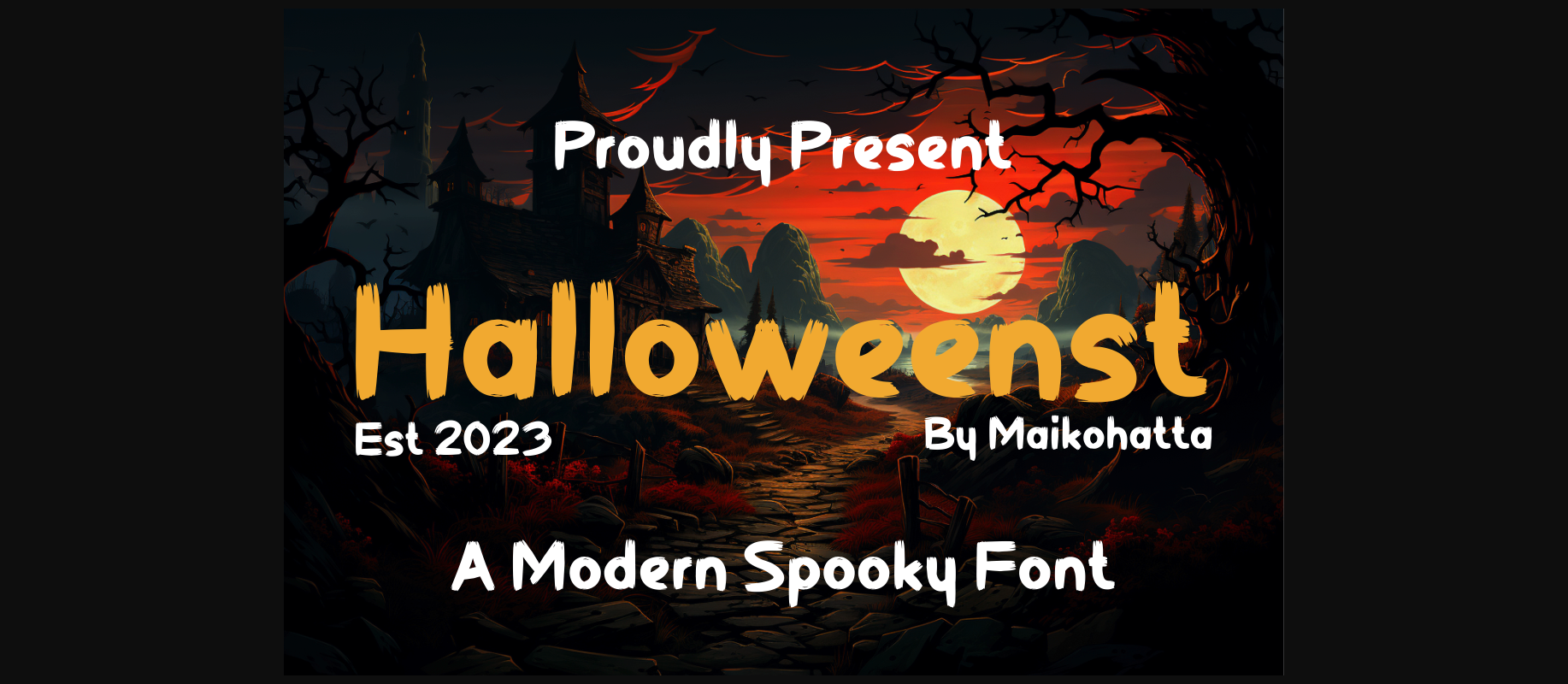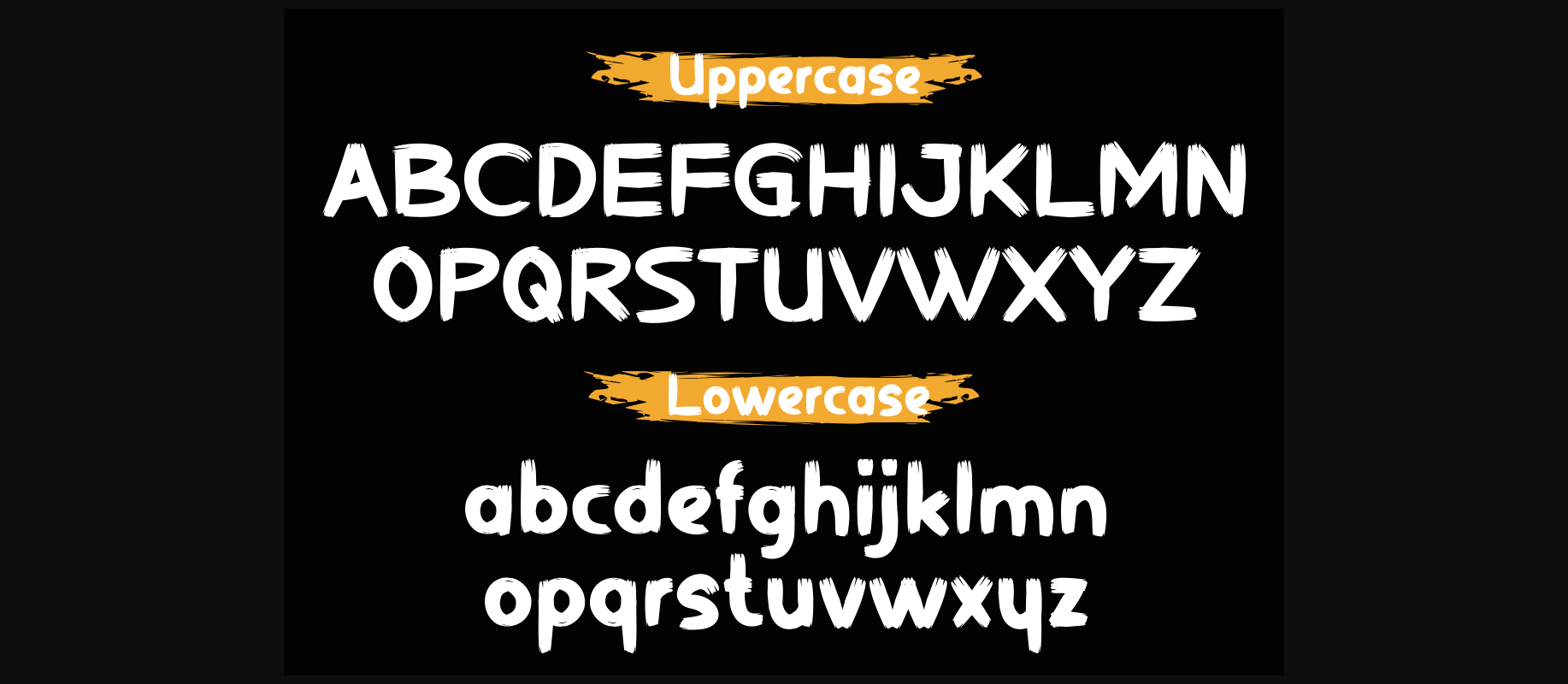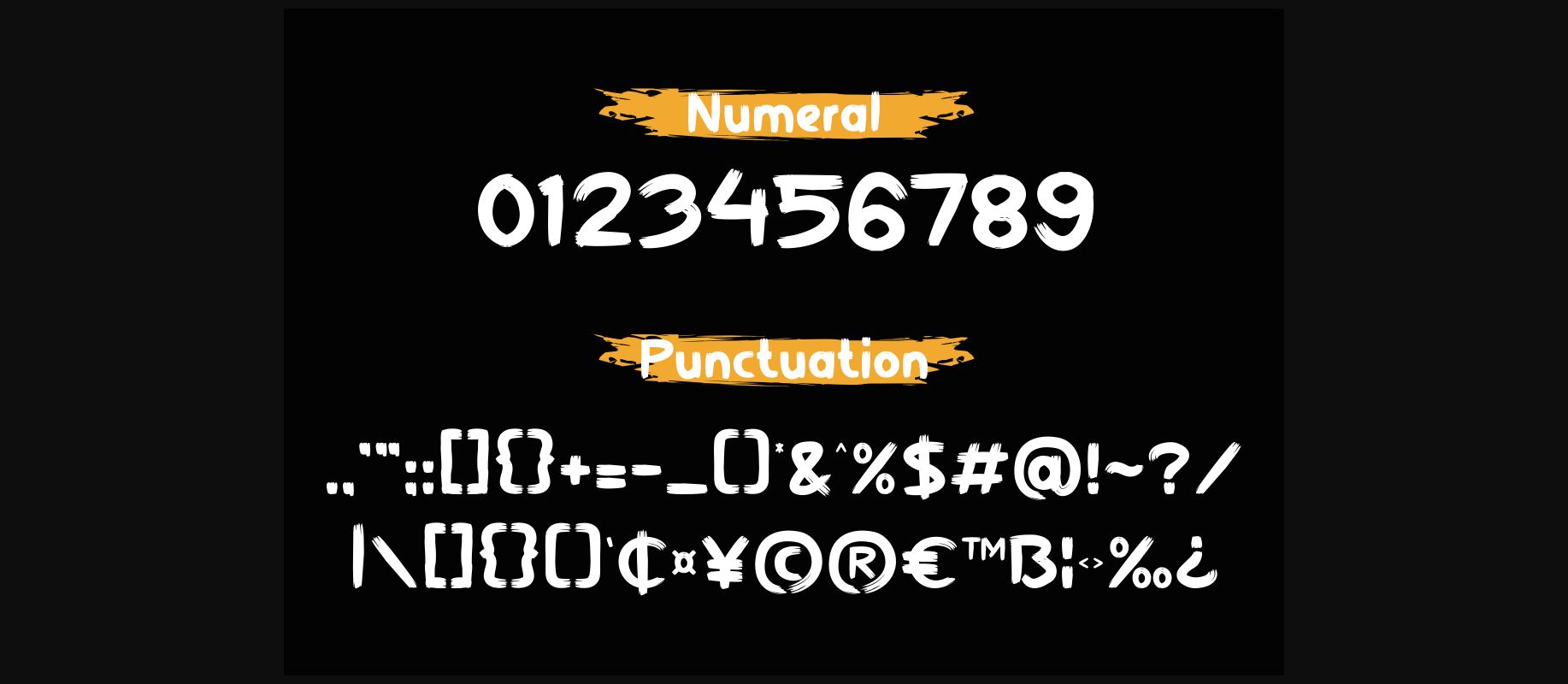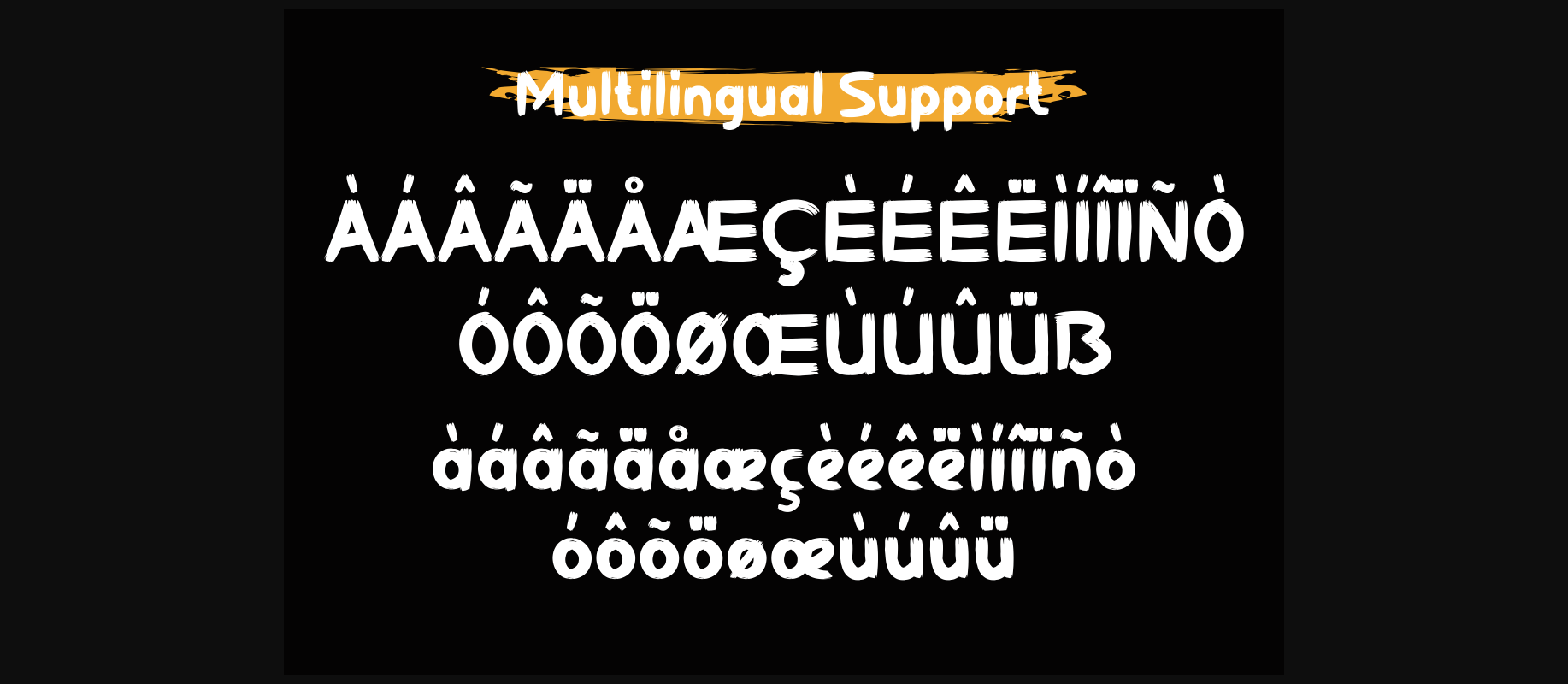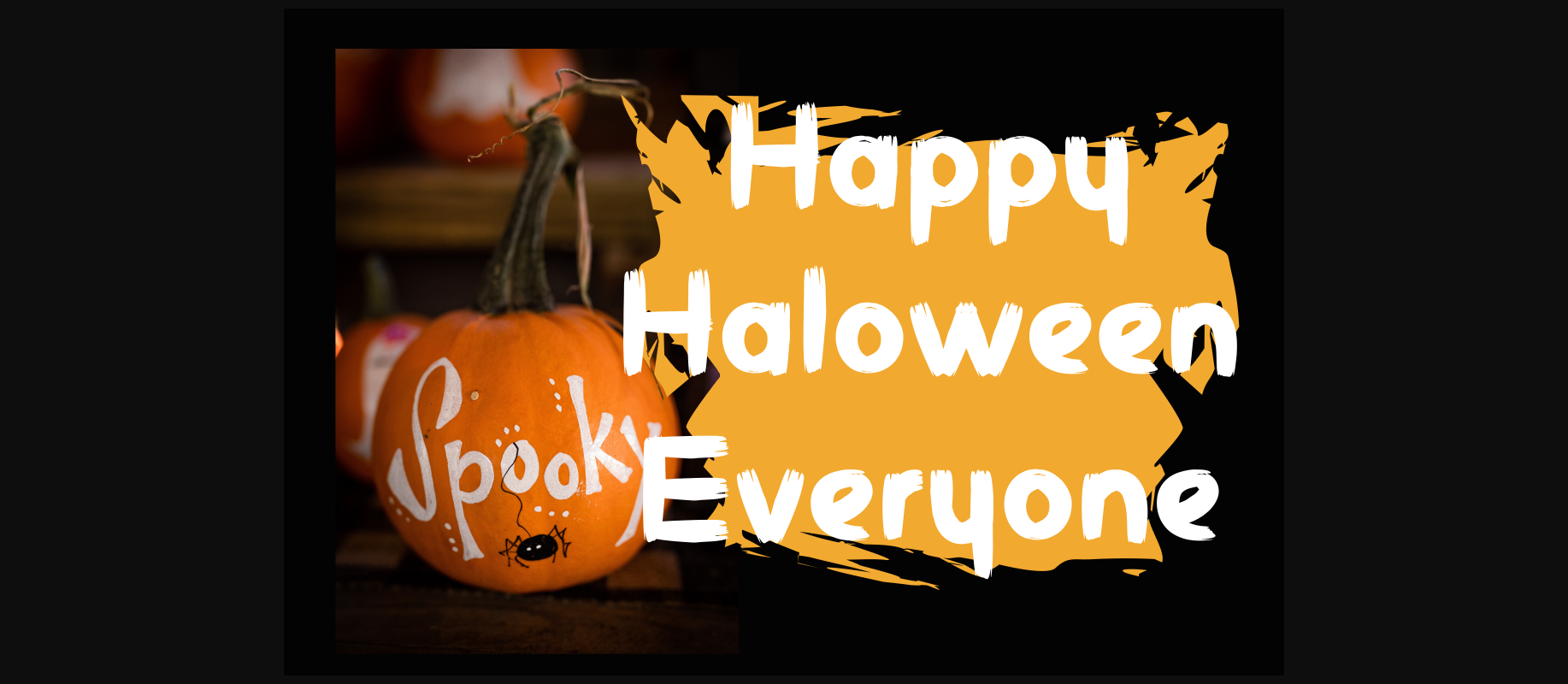
About Halloweenst Font
This font is a type of font specifically designed to create a spooky, mysterious atmosphere and depict the spirit of Halloween celebrations. This font can be used in various Halloween-related media, such as party invitations, posters, merchandise designs, greeting cards, warning signs, or within website designs with Halloween themes.